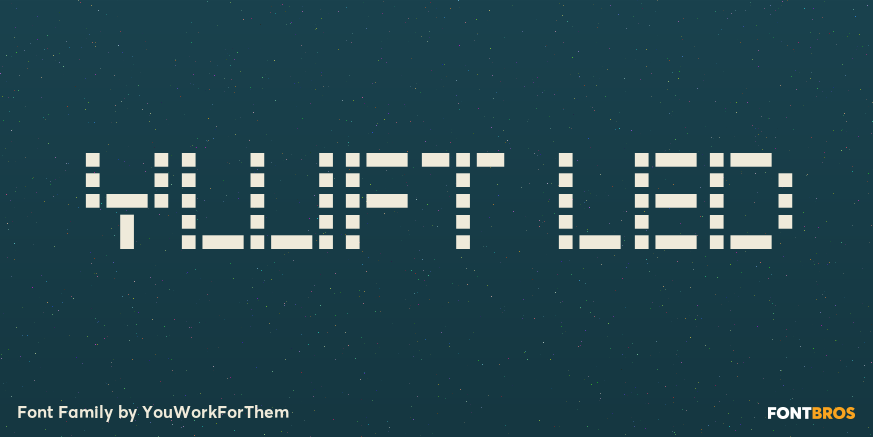
YWFT LED
About YWFT LED
Defying convention and bringing a new versatility to the pixel genre is YWFT LED, a unique, bitmap-styled typeface that certainly won\’t go over like a lead balloon. Use the Light weight to create a very fashionable, soft visual approach, or flip the spectrum…